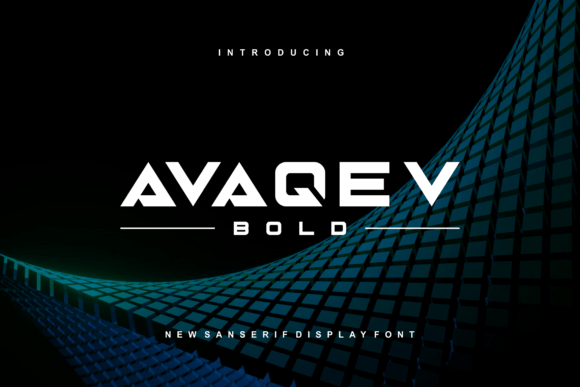
The Perfect Font for a Cutting-Edge Design
Have you ever stared at a blank canvas, trying to find the perfect font to bring your design to life? I know I have. It’s that moment when everything feels right, and the right font is the missing piece that takes your design from good to great. For designers, finding that perfect font can be a game-changer.
That’s where Avaqev Font comes in – a strong, modern tech font designed to make your text stand out. With its clean, bold lines and futuristic look, it’s perfect for technology-related designs or anything that needs a sleek, powerful feel. The Avaqev Font’s sharp letters give your text a confident and cutting-edge appearance, making it a valuable addition to any designer’s toolkit.
Avaqev Font Key Features
- Font Family: Avaqev is a unique, modern sans-serif font family designed for digital use.
- Character Set: Avaqev includes a wide range of characters, including Latin, Cyrillic, and Greek alphabets, as well as punctuation and symbols.
- Unique Characteristics: Avaqev features a distinctive, geometric design with clean lines and a minimalist aesthetic, making it ideal for modern digital projects.
Avaqev Font Review
I recently had the chance to work with the Avaqev Font, and I must say, it’s a mixed bag. ✨ Some aspects truly shine, while others fall short.
- ✨ The Avaqev Font has a unique, modern aesthetic that can add a touch of sophistication to any design. Its geometric shapes and clean lines make it perfect for contemporary branding and editorial projects.
- ✨ The font’s versatility is impressive, with a wide range of weights and styles available. This makes it easy to adapt to different design needs and moods.
- ✨ The Avaqev Font is highly legible, even at small font sizes, which is crucial for digital projects where text is often scaled down.
- ⚠️ One major issue I encountered was the font’s limited support for non-Latin scripts. This makes it less suitable for projects requiring multilingual support.
- ⚠️ The Avaqev Font can feel a bit cold and sterile, lacking the warmth and personality often found in more traditional font styles.
- ⚠️ The font’s extensive weight and style options can be overwhelming, making it difficult to choose the perfect combination for a specific project.
Overall, the Avaqev Font is a solid choice for modern design projects, but its limitations may make it less appealing to those requiring more flexibility or a warmer aesthetic.
Avaqev Font works well for creating eye-catching headings and titles in Canva designs.
Avaqev Font can be used to create custom typography in Adobe projects.
Avaqev Font can be used to add a touch of elegance to your presentations and documents.
Avaqev Font is ideal for:
Creating eye-catching headings and titles
Designing elegant typography
Adding a touch of sophistication to presentations and documents
Experimenting with unique font combinations
Alternatives to Avaqev Font for Designers
Montserrat Font is a sans-serif typeface that originated in Argentina. It’s known for its geometric shapes and clean lines, making it perfect for modern designs. Use Montserrat for digital products, apps, and websites that require a sleek and professional look.
Montserrat is more versatile than Avaqev Font, with a wider range of font weights and styles. While Avaqev has a more unique and decorative feel, Montserrat is more straightforward and easier to read.
Open Sans Font is a popular sans-serif typeface that’s designed for digital use. It’s highly legible and works well in a variety of contexts, from body text to headings. Use Open Sans for designs that require a clean and approachable look.
Open Sans is more legible than Avaqev Font, especially at smaller font sizes. However, Avaqev has a more distinctive and stylish feel that may be more suitable for creative or artistic projects.
Lato Font is a sans-serif typeface that’s designed to be highly legible and readable. It’s available in a range of font weights and styles, making it perfect for designs that require a lot of text. Use Lato for designs that need a clean and modern look.